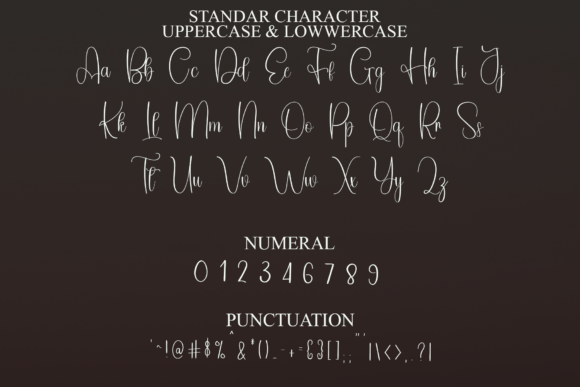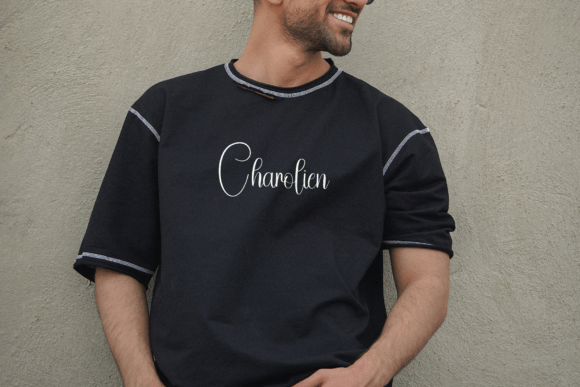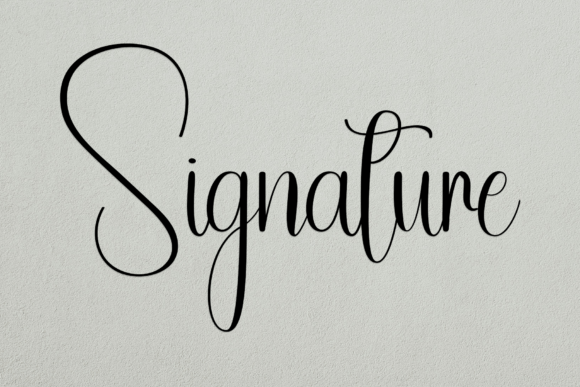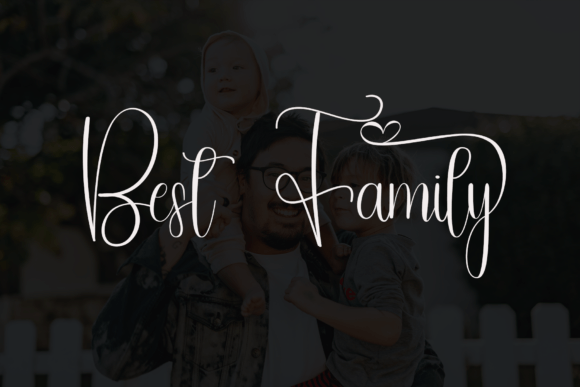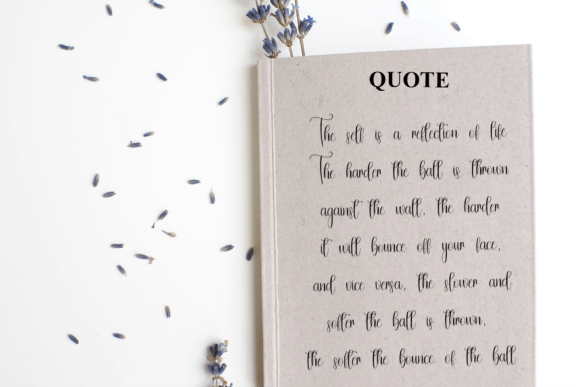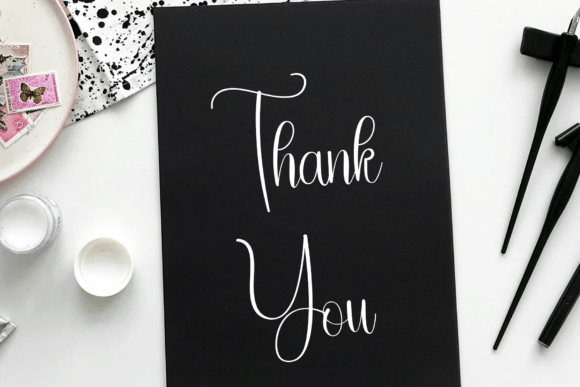
Introducing Family Barbie Font: Elevate Your Designs with Elegance
Are you a designer or crafter looking for a font that exudes sophistication and modernity? Look no further than the Family Barbie Font, a stunning handwritten font that is sure to take your designs to the next level. With its classy, elegant, and refined look, this font is perfect for a wide range of applications, from logos and branding to invitations, stationery, and wedding designs.
What Makes Family Barbie Font So Special?
Family Barbie Font is a beautiful and refined handwritten font that boasts a unique and stylish aesthetic. Its elegant and modern look makes it an ideal choice for designers and crafters who want to create sophisticated and eye-catching designs. Whether you’re working on a logo, branding project, or social media post, this font is sure to impress.
Key Features of Family Barbie Font
- Classy and Elegant: Family Barbie Font has a refined and sophisticated look that is perfect for high-end designs.
- Modern Aesthetic: This font boasts a modern and fresh look that will make your designs stand out.
- Versatile: This font can be used for a wide range of applications, including logos, branding, invitations, stationery, wedding designs, social media posts, and more.
Use Cases for Family Barbie Font
Family Barbie Font is an incredibly versatile font that can be used for a wide range of design projects. Here are some use cases to get you started:
- Logos and Branding: Create a sophisticated and memorable logo for your business or brand with Family Barbie Font.
- Invitations and Stationery: Use this font to create beautiful and elegant invitations, stationery, and greeting cards.
- Wedding Designs: Make your wedding designs stand out with the elegant and refined look of Family Barbie Font.
- Social Media Posts: Elevate your social media posts with the modern and fresh look of this font.
Why Designers and Crafters Love Family Barbie Font
Designers and crafters love Family Barbie Font for its unique and stylish aesthetic. Here are some reasons why:
- High-Quality Design: Family Barbie Font is designed with high-quality and precision, ensuring that it looks great in any design.
- Unique Aesthetic: This font has a unique and stylish aesthetic that sets it apart from other fonts.
In conclusion, Family Barbie Font is a stunning handwritten font that is perfect for designers and crafters who want to create sophisticated and eye-catching designs. With its classy, elegant, and modern look, this font is sure to elevate your designs to the next level. Whether you’re working on a logo, branding project, or social media post, Family Barbie Font is an excellent choice.